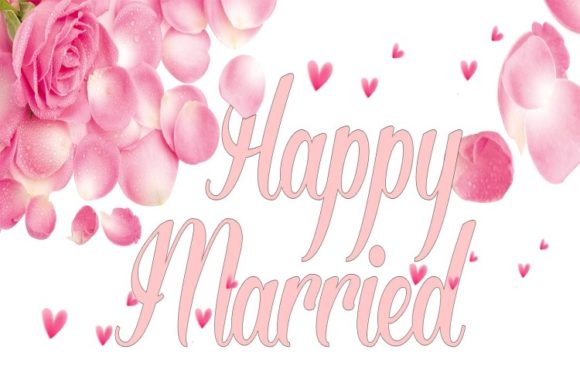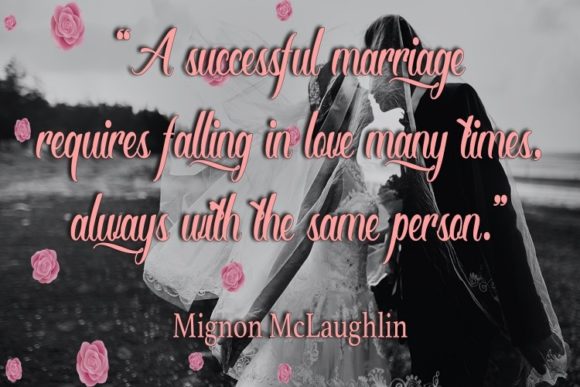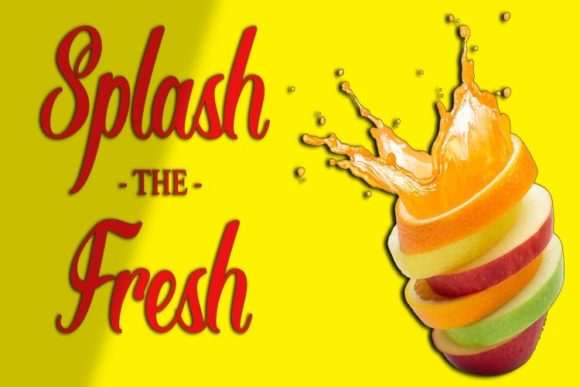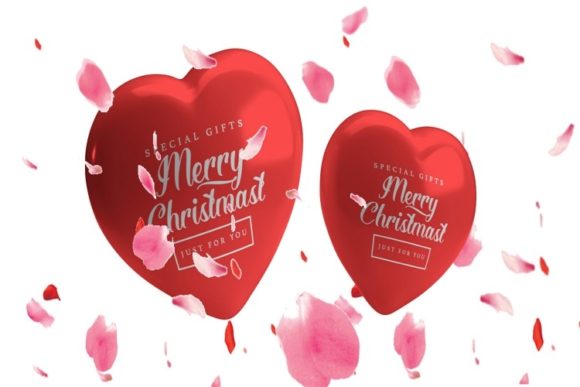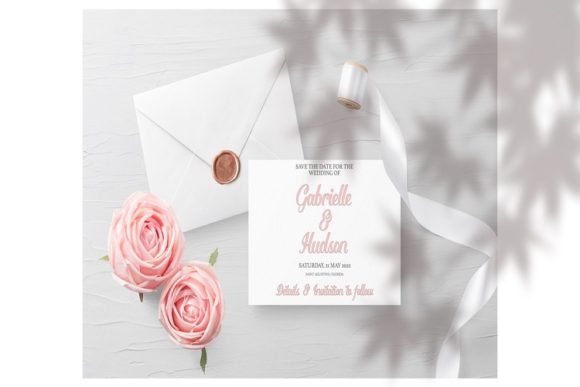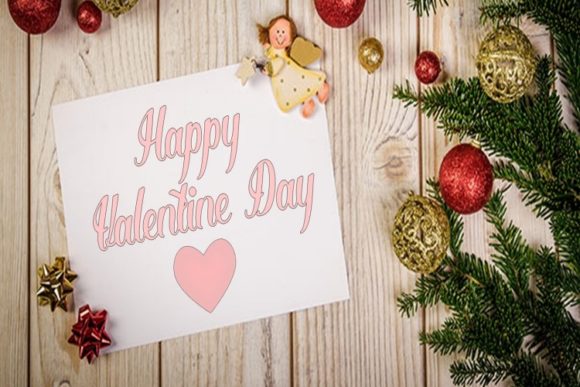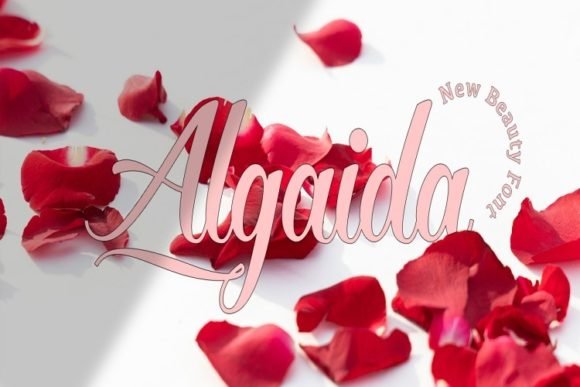
The Magic of Handwritten Fonts: Introducing Algaida Font
As a designer, there’s nothing quite like the thrill of bringing a client’s vision to life. You’re browsing through a font library, searching for the perfect script to convey the emotions and tone of a project. And then, it happens – you stumble upon Algaida Font, and suddenly, your design takes on a whole new level of personality.
Algaida Font is a stunning modern script font designed to evoke the feel of handwritten notes and heartfelt messages. Its beautiful beginning and ending swashes make it perfect for occasions like Christmas, Valentine’s Day, weddings, and birthdays. With its PUA encoding, designers can easily access all the glyphs and swashes, giving them the freedom to create unique and captivating designs.
For designers, the value of Algaida Font lies in its ability to add a touch of elegance and sophistication to any project. Its versatility and expressiveness make it a valuable addition to any font library, and its PUA encoding ensures that designers can unlock its full potential with ease.
Algaida Font Key Features
- Unique Characteristics: This font features a unique blend of modern and traditional elements, making it suitable for a wide range of design projects, from modern logos to classic typography.
Algaida Font Review
Algaida is a beautiful, elegant script font that works well in certain contexts. ✨ The font’s flowing lines and subtle flourishes evoke a sense of sophistication and luxury, making it perfect for high-end branding and advertising.
Some of the font’s strengths include its:
- High legibility, even at small font sizes
- Beautiful letter connections, which create a sense of fluidity
- Wide range of OpenType features, including swashes and ligatures
However, Algaida also has some limitations. ⚠️ The font’s aesthetic may be too ornate for certain designs, and its complexity can make it difficult to pair with other fonts. Additionally, the font’s default spacing can be a bit tight, which may require manual adjustments in certain layouts.
Overall, I think Algaida is a great choice for designers who want to add a touch of elegance and sophistication to their work. While it may not be the best fit for every project, it’s a versatile font that can be used in a variety of contexts.
Algaida Font is ideal for creating elegant and sophisticated designs in Canva, such as wedding invitations, business cards, and brochures.
Algaida Font is perfect for creating high-end designs in Adobe Photoshop and Illustrator, such as luxury brand logos, packaging designs, and advertising materials.
Algaida Font is ideal for creating professional and polished presentations and documents in PowerPoint and Word, such as business reports, resumes, and academic papers.
Getting the Most Out of Algaida Font
To get the most out of Algaida Font, use it in combination with other elegant fonts, such as serif fonts like Times New Roman or Garamond.
Also, experiment with different font sizes, colors, and styles to create visually appealing
The Algaida Font features a range of advanced typographic features, including ligatures, swashes, and ornaments, which can be accessed using OpenType-enabled applications such as Adobe Creative Cloud or Microsoft Office. These features can be activated using the font’s contextual alternates and stylistic sets.